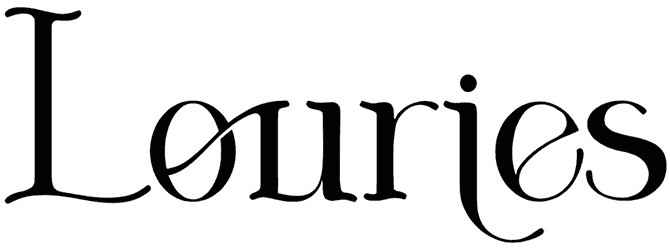
Louries Font
This luxury serif font has a classic look that works well in a variety of contexts. The Louries font is a great alternative for many Christmas flyers, posters, invitations, social media posts, and more. It affects your designs and gives them a more formal, feminine feel. You won’t have to waste your valuable time designing one from the ground up if you use this!